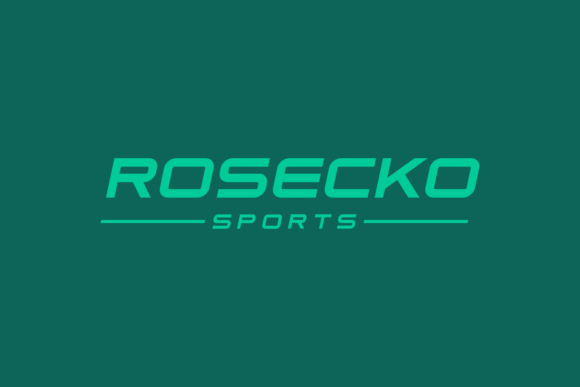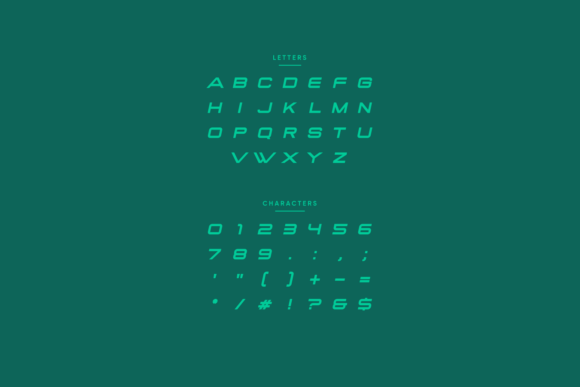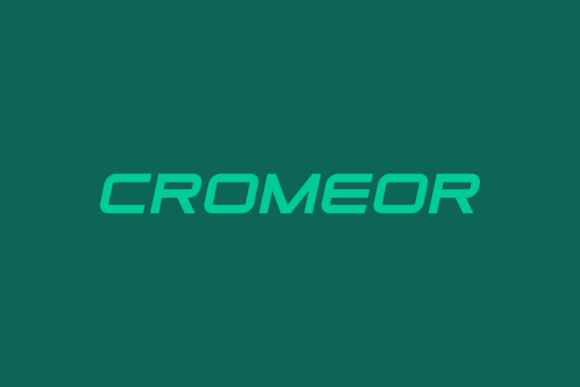
Introducing Creckor Font: The Ultimate Modern Sports Font for Bold Designs
In the world of design, typography plays a crucial role in conveying the message and tone of a project. For designers and crafters looking for a font that can add a touch of modernity and boldness to their work, Creckor Font is an excellent choice. Built specifically for branding, headings, and prominent typography needs, Creckor is a modern sports font that is sure to make your design more memorable.
What is Creckor Font?
Creckor Font is a contemporary sports font designed to cater to the needs of designers who want to create bold and striking designs. With its fresh and new style, Creckor is perfect for adding a modern touch to sports, tech, action, and battle themes. The font’s bold action style and modern feel make it an ideal choice for designers who want to showcase their main ideas in a unique and attention-grabbing way.
Key Features of Creckor Font
Creckor Font comes with a range of features that make it an excellent choice for designers and crafters. Some of its key features include:
- Modern and Fresh Style: Creckor Font boasts a modern and fresh style that is sure to make your design stand out.
- Bold Action Style: The font’s bold action style makes it perfect for creating striking designs that grab attention.
- Versatile: Creckor Font is versatile and can be used for a range of design projects, including branding, headings, and prominent typography needs.
- Easy to Read: Despite its bold style, Creckor Font is easy to read, making it perfect for designs that require a clear and concise message.
Use Cases for Creckor Font
Creckor Font is perfect for a range of design projects, including:
- Sports Designs: Creckor Font is ideal for sports designs, including logos, jerseys, and sports equipment.
- Tech Designs: The font’s modern and bold style makes it perfect for tech designs, including software, apps, and technology-related branding.
- Action and Battle Themes: Creckor Font is perfect for action and battle themes, including movie posters, video game designs, and more.
- Branding and Advertising: The font’s bold and attention-grabbing style makes it perfect for branding and advertising designs.
Why Choose Creckor Font?
There are many reasons why designers and crafters should choose Creckor Font for their design projects. Some of the reasons include:
- Unique and Memorable: Creckor Font is unique and memorable, making it perfect for designs that require a lasting impression.
- High-Quality: The font is of high quality, making it perfect for professional designs.
In conclusion, Creckor Font is an excellent choice for designers and crafters looking for a modern sports font that can add a touch of boldness and modernity to their designs. With its fresh and new style, Creckor is perfect for a range of design projects, including sports, tech, action, and battle themes. Its key features, including its modern and bold style, versatility, and ease of use, make it an ideal choice for designers who want to create striking designs that grab attention.